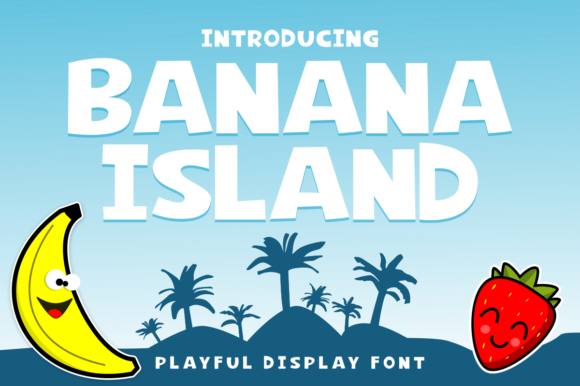
Dive into the realm of visual enchantment, where Banana Island Font reigns supreme. This captivating display font is meticulously designed to elevate your digital creations with its bold presence and playful charm. Discover the endless possibilities it holds, unlocking a world of captivating designs that captivate and inspire.
Unleash your creativity with Banana Island Font, where each letter dances across the screen with a vibrant energy. Its bold strokes command attention, while its playful curves infuse your designs with a touch of whimsy. Whether you seek to craft eye-catching headlines, vibrant social media posts, or stunning logos, Banana Island Font is your trusted ally.
Embrace the transformative power of Banana Island Font and witness your designs blossom into masterpieces. Its versatility knows no bounds, seamlessly adapting to any project, from digital displays to print creations. Let your imagination soar as you weave captivating narratives and create unforgettable impressions.
With Banana Island Font at your fingertips, you possess the key to unlocking a realm of visual enchantment. Its bold strokes and playful curves will ignite your creativity, empowering you to craft designs that dance off the screen with irresistible charm. Prepare to embark on a journey where every letter becomes a brushstroke, painting a vibrant tapestry of captivating designs.